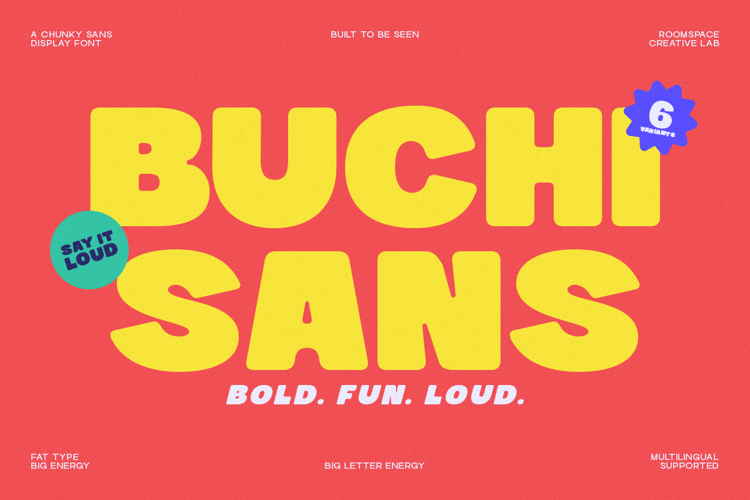
Buchi Sans - Font
Buchi Sans a bold and playful display font built with chunky letterforms and friendly curves. Designed to stand out instantly, Buchi Sans adds big energy and joyful character to any layout. Whether you’re designing posters, social media content, brand visuals, or packaging, Buchi Sans helps your message feel confident, modern, and unforgettable.